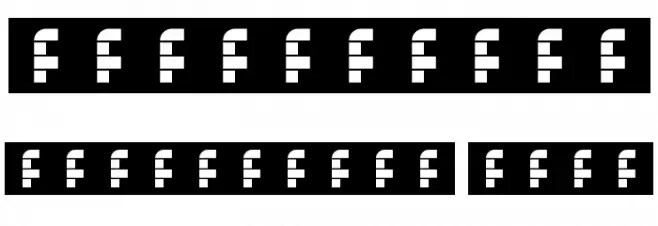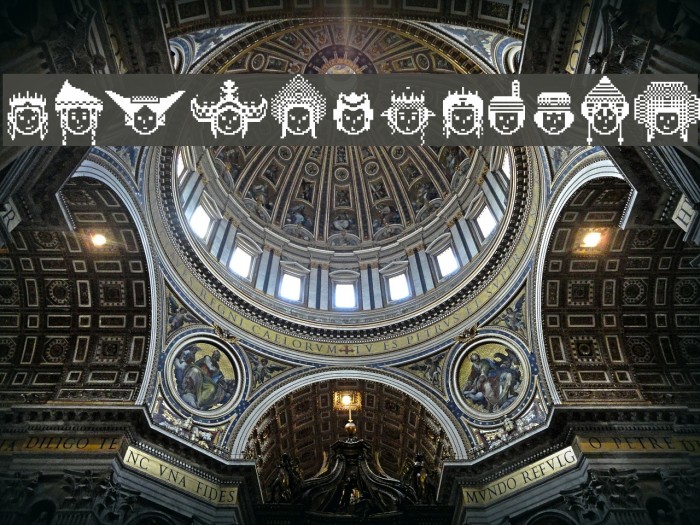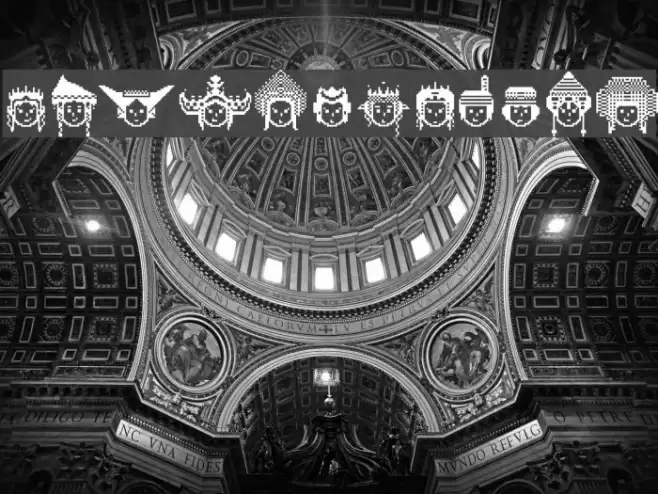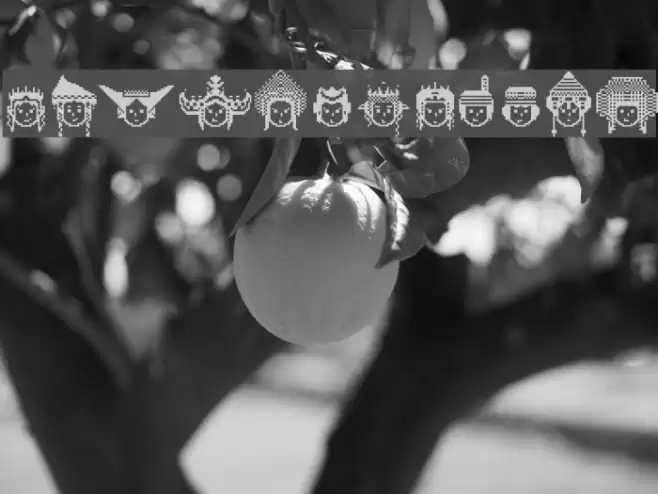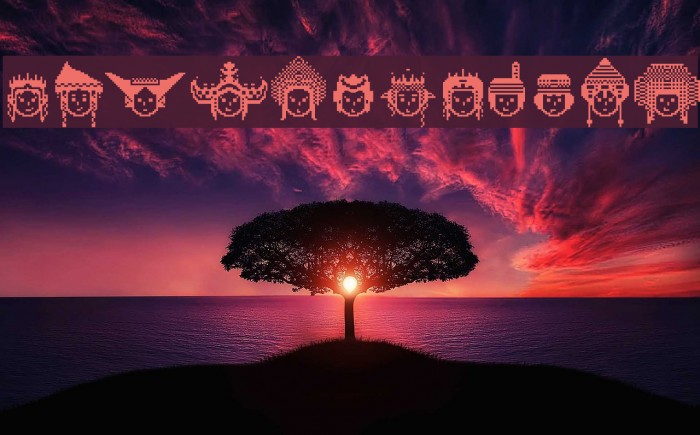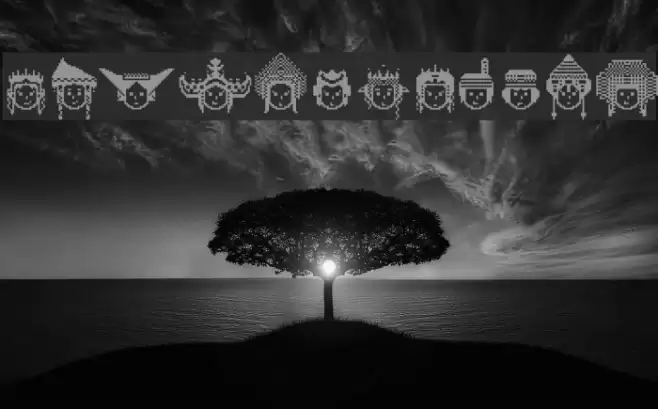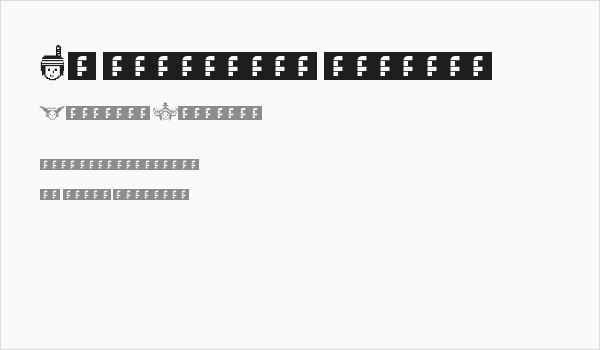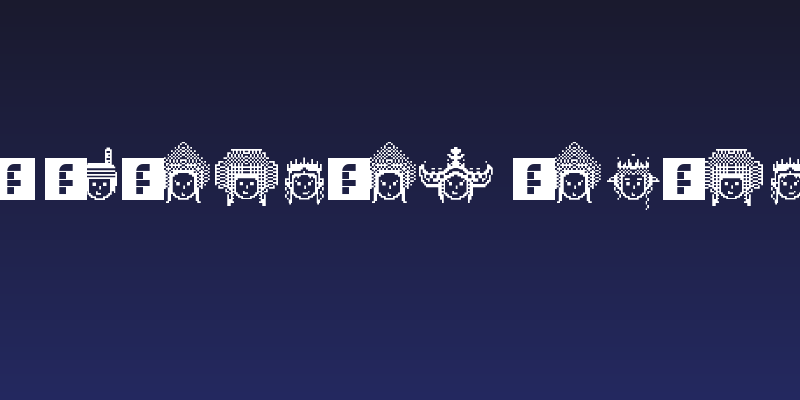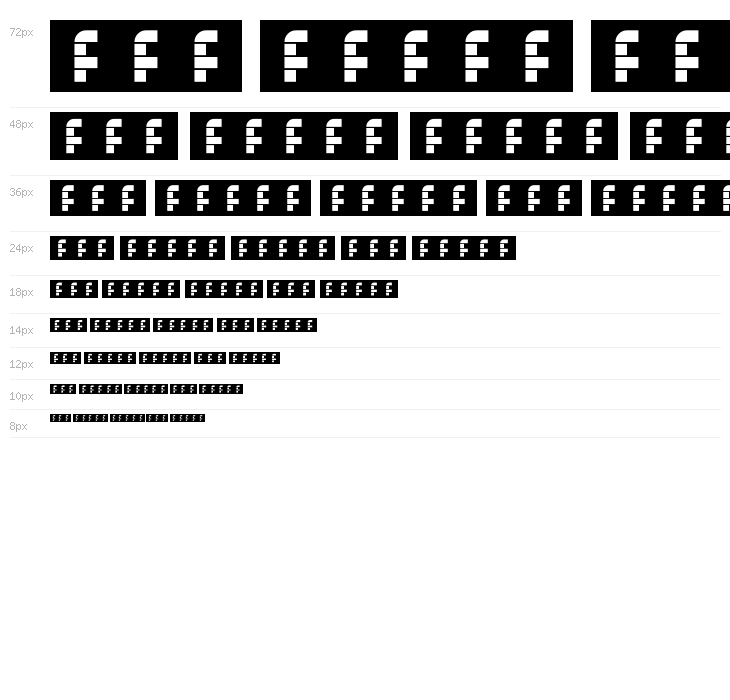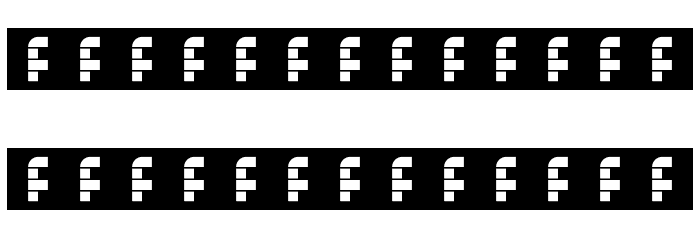
IW Pixelated Regular Font
IW Pixelated Regular Description
This is not a valid font image. The image contains pixelated graphics of faces and repeated letter 'F' characters, which do not represent a complete or usable font set. The characters lack the necessary variety and structure to be considered a functional typeface. The image appears to be more of a decorative or artistic representation rather than a practical font for text usage.
| Use Case | Artistic decoration |
| Proposed Projects | This image could be used for artistic or decorative purposes, but not for text-based projects. |